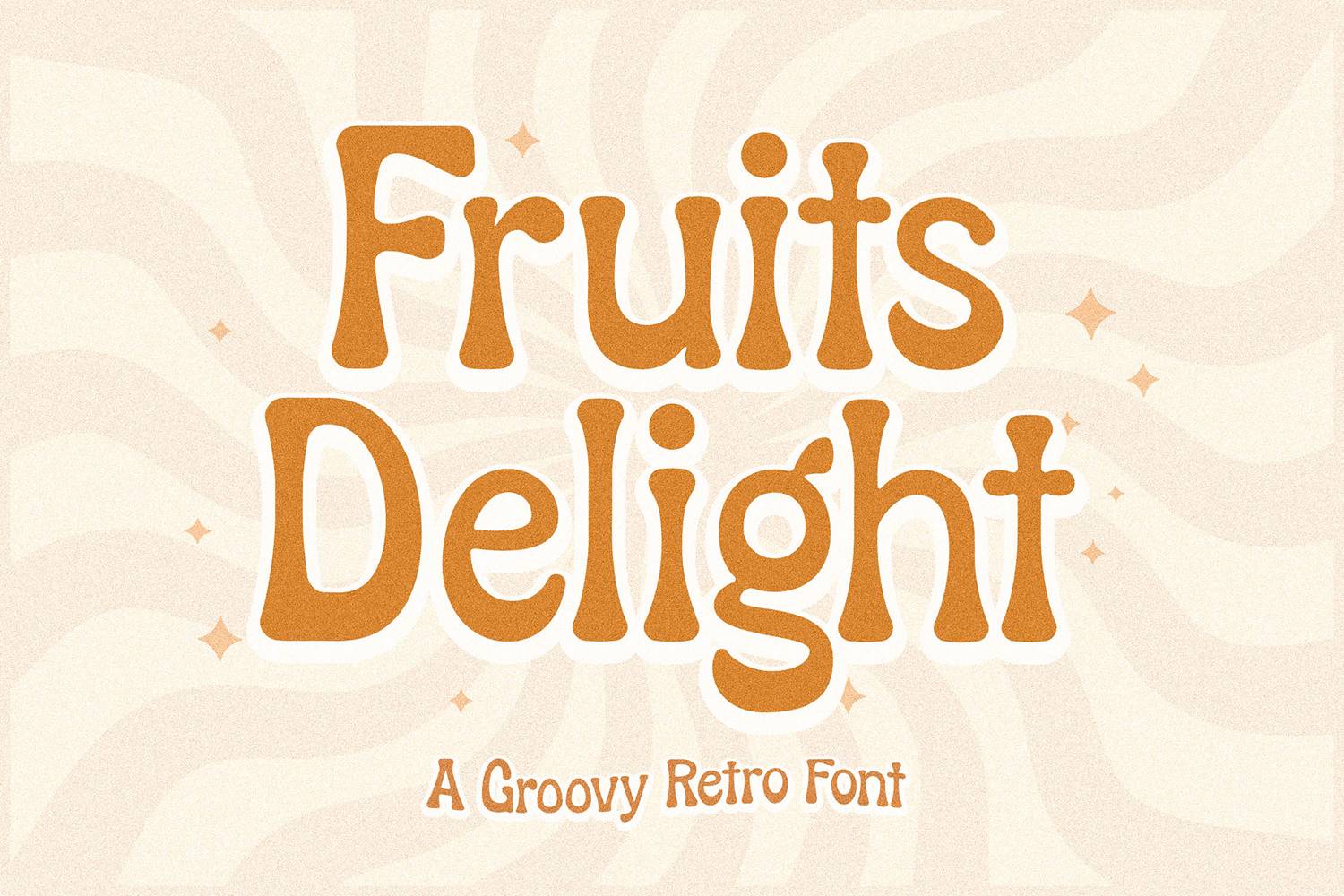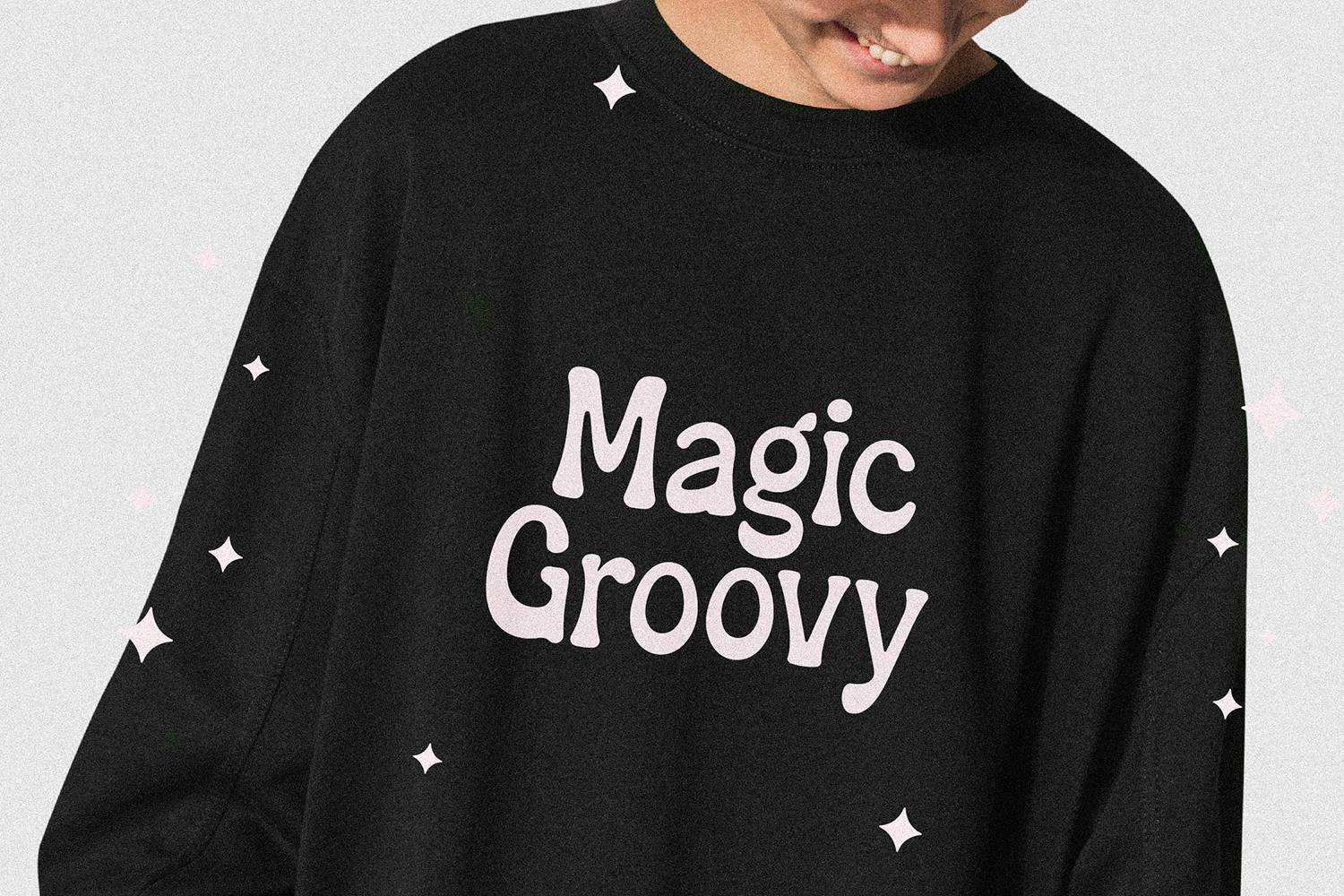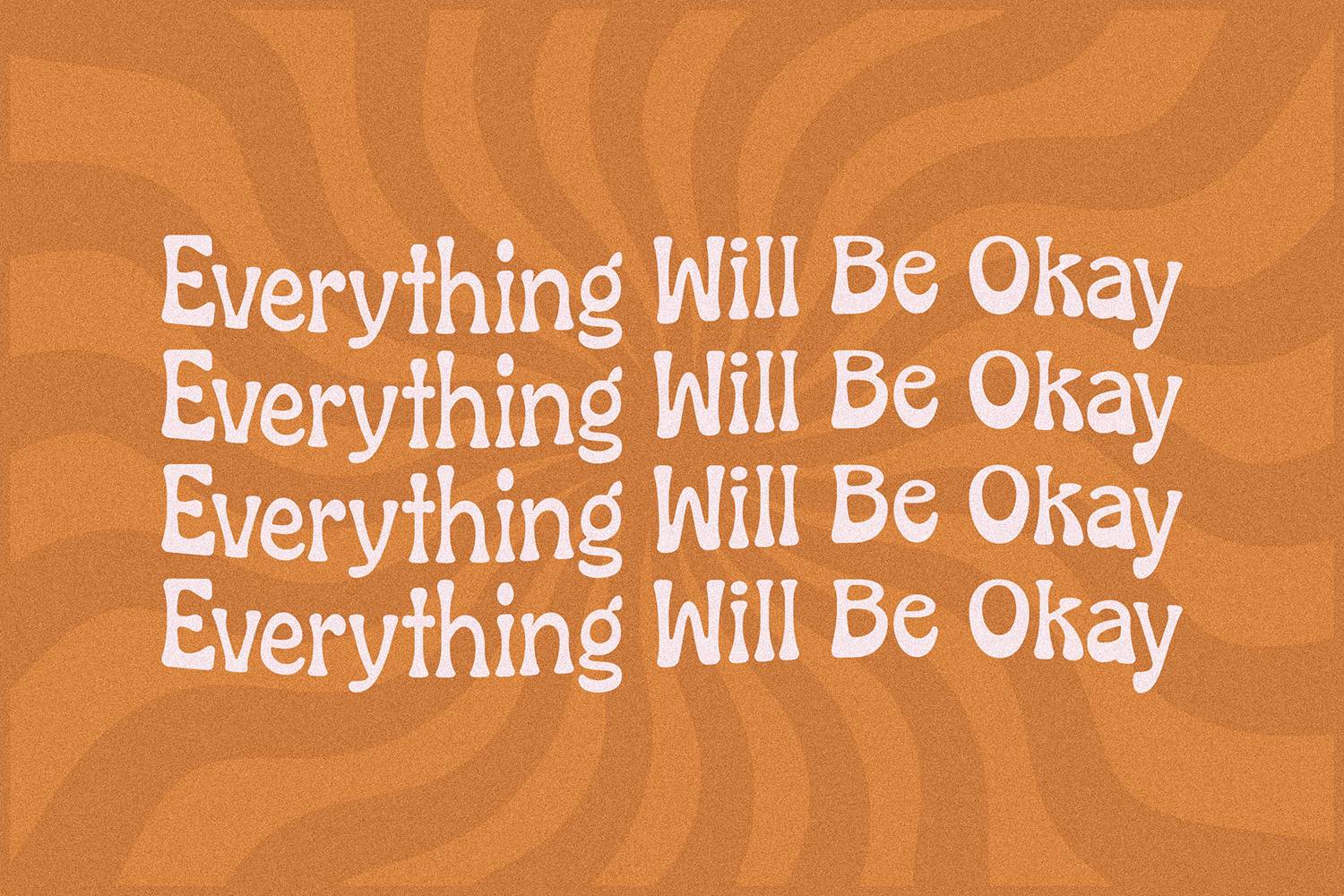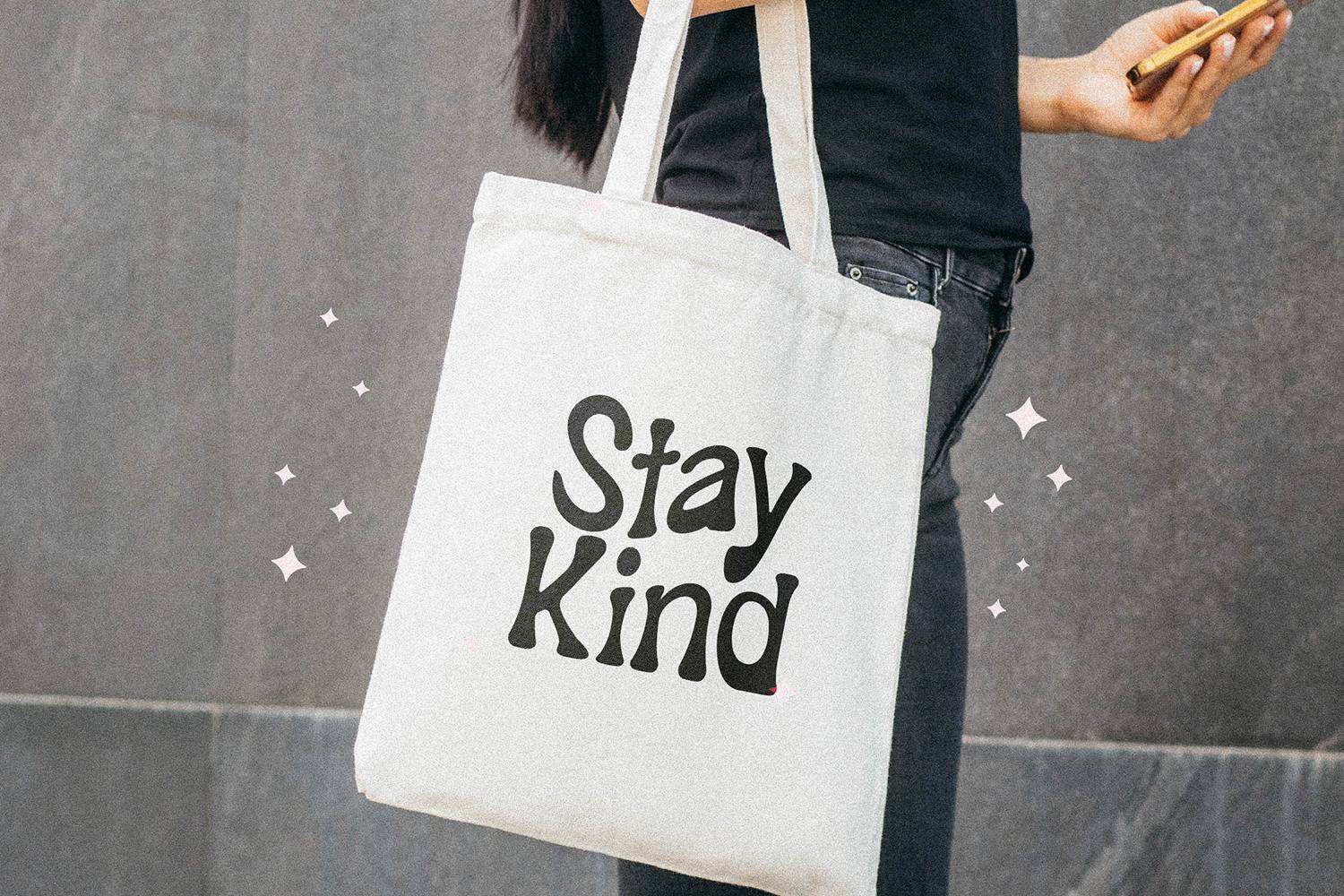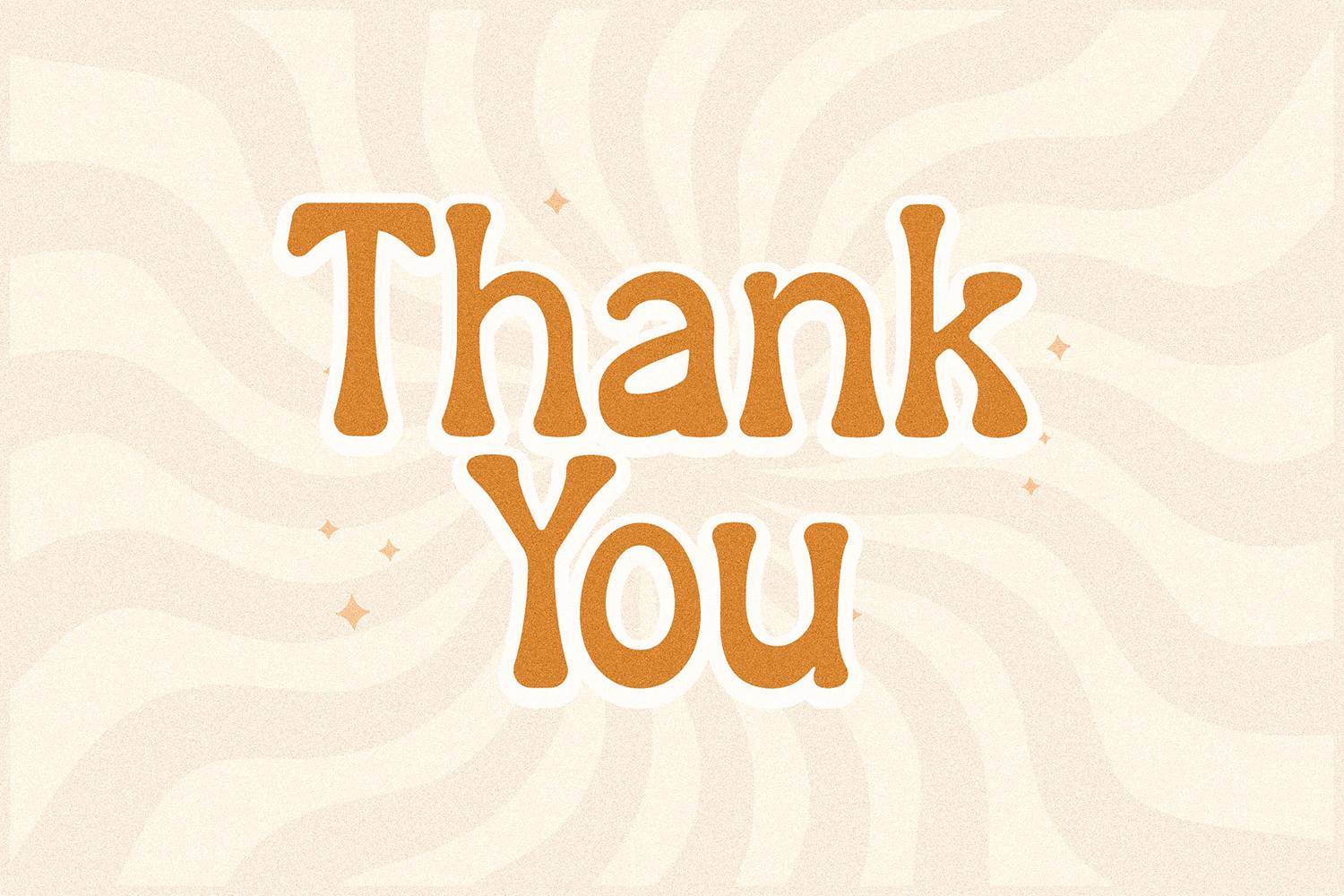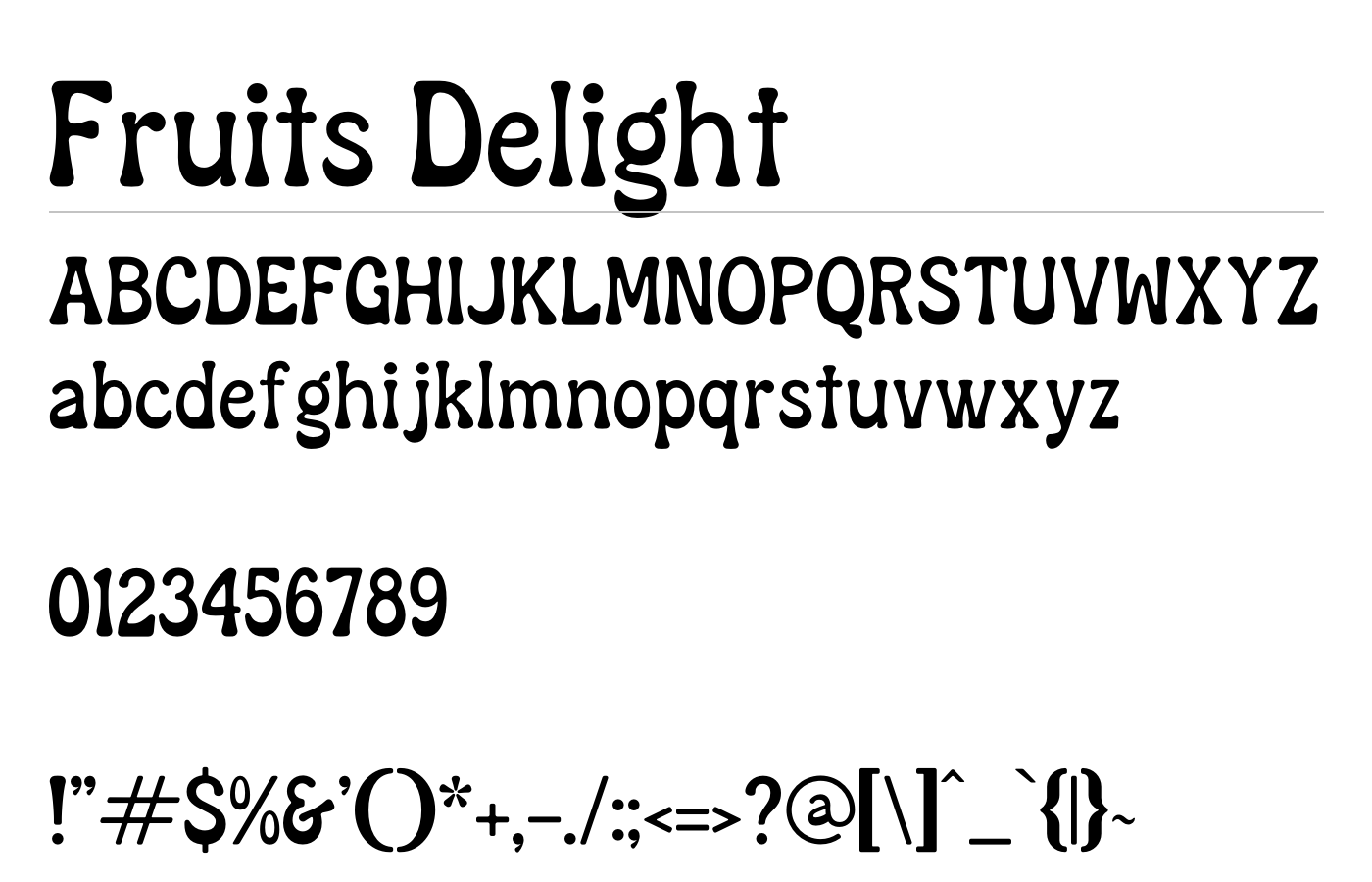
Fruits Delight is a playful and friendly serif font with a hand-crafted feel, featuring gently irregular shapes and soft, rounded serifs that give it a warm and inviting personality. Its moderate contrast and lively letterforms make it perfect for creative projects, packaging, and branding that aim to convey charm and approachability while still being easy to read. This font works well for headlines and decorative uses where a fun, casual style is desired.
Fruits Delight Font
About Fruits Delight Font